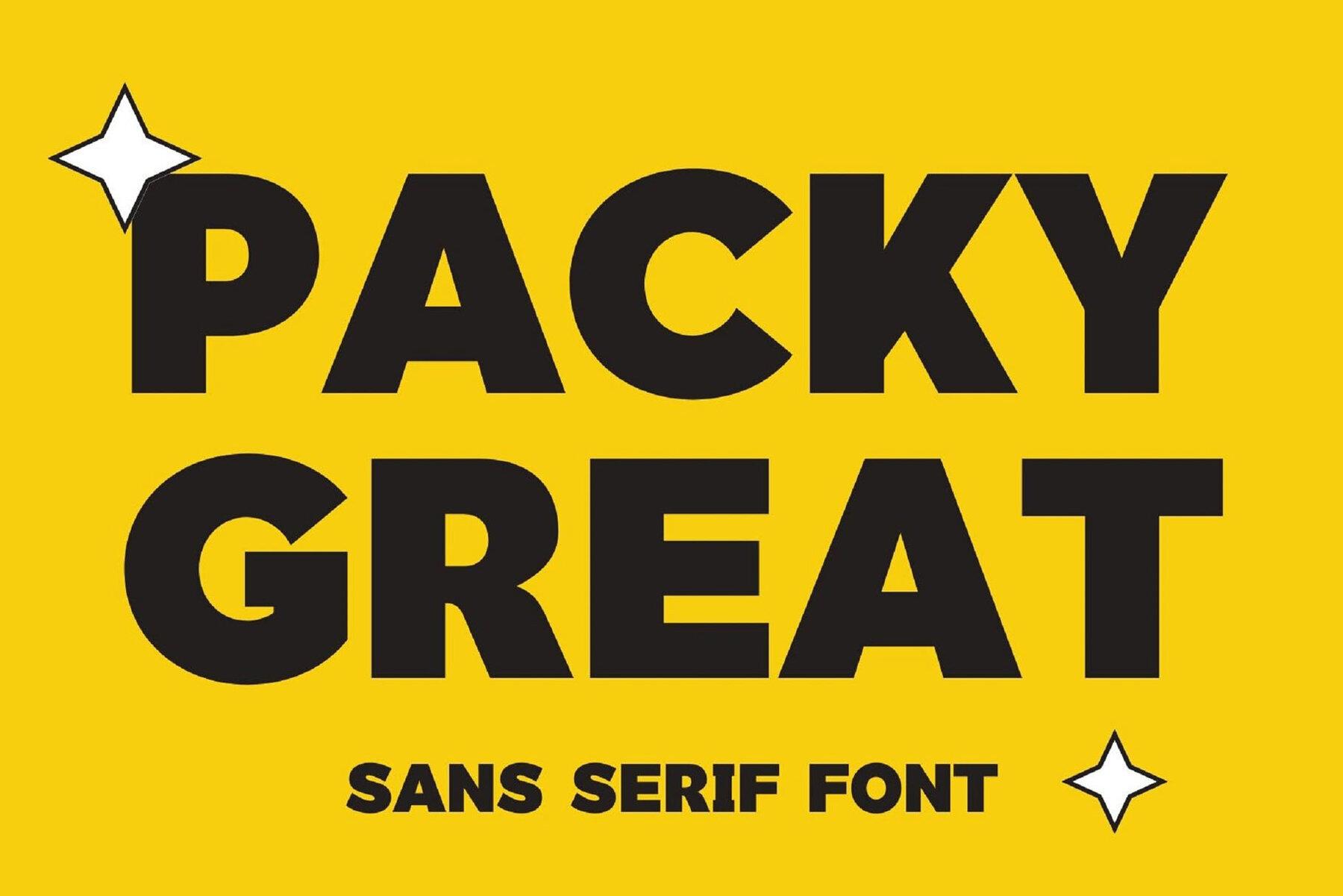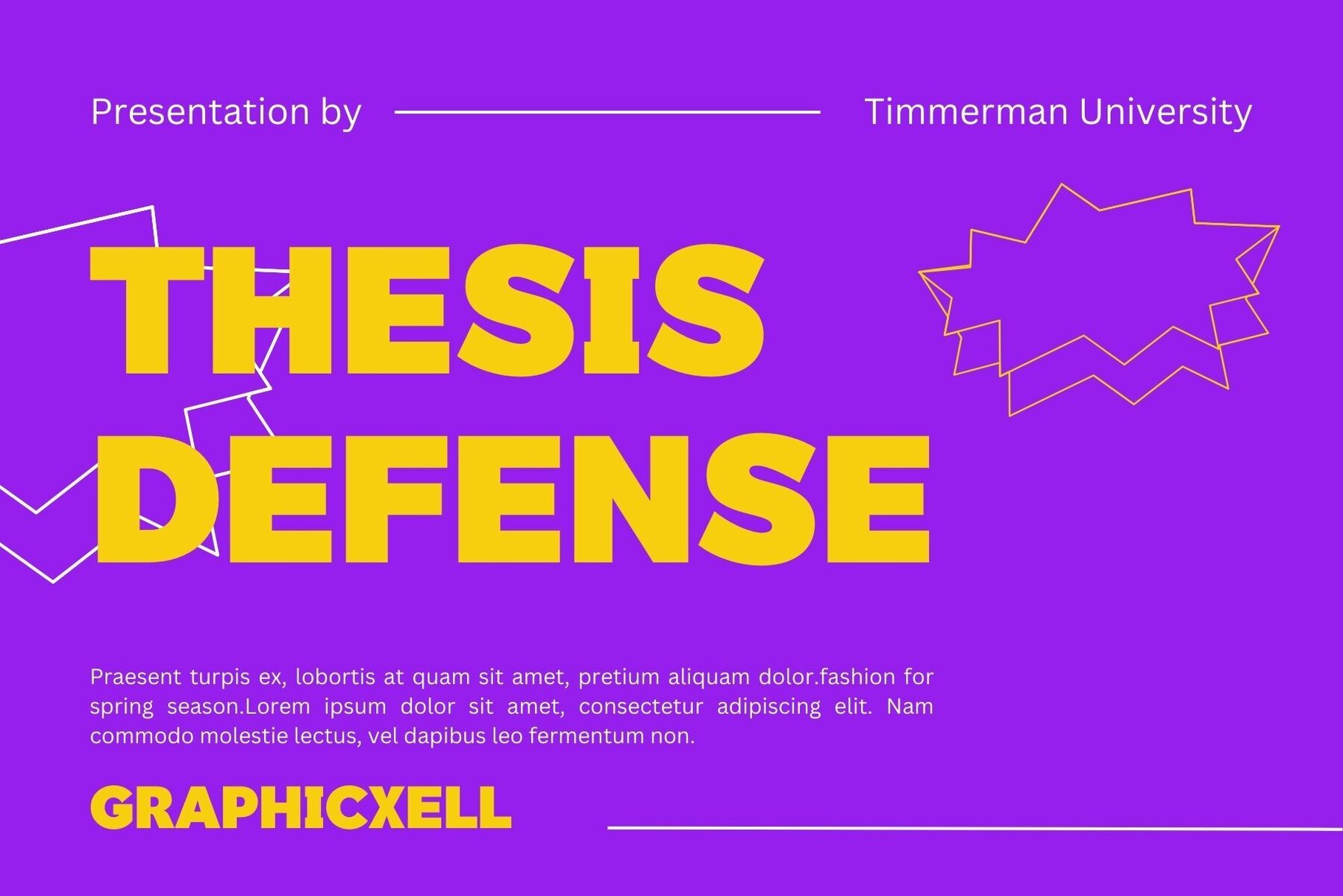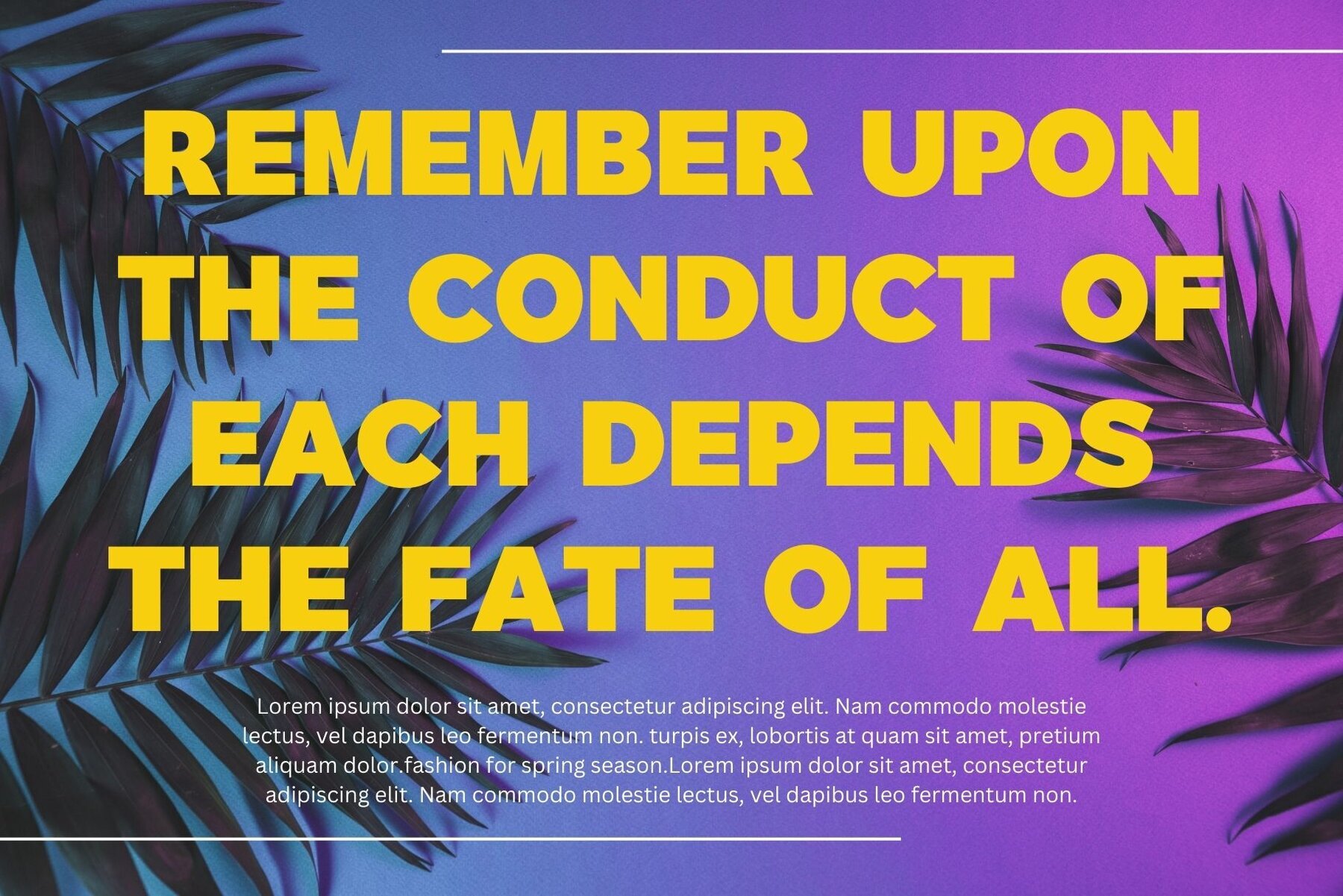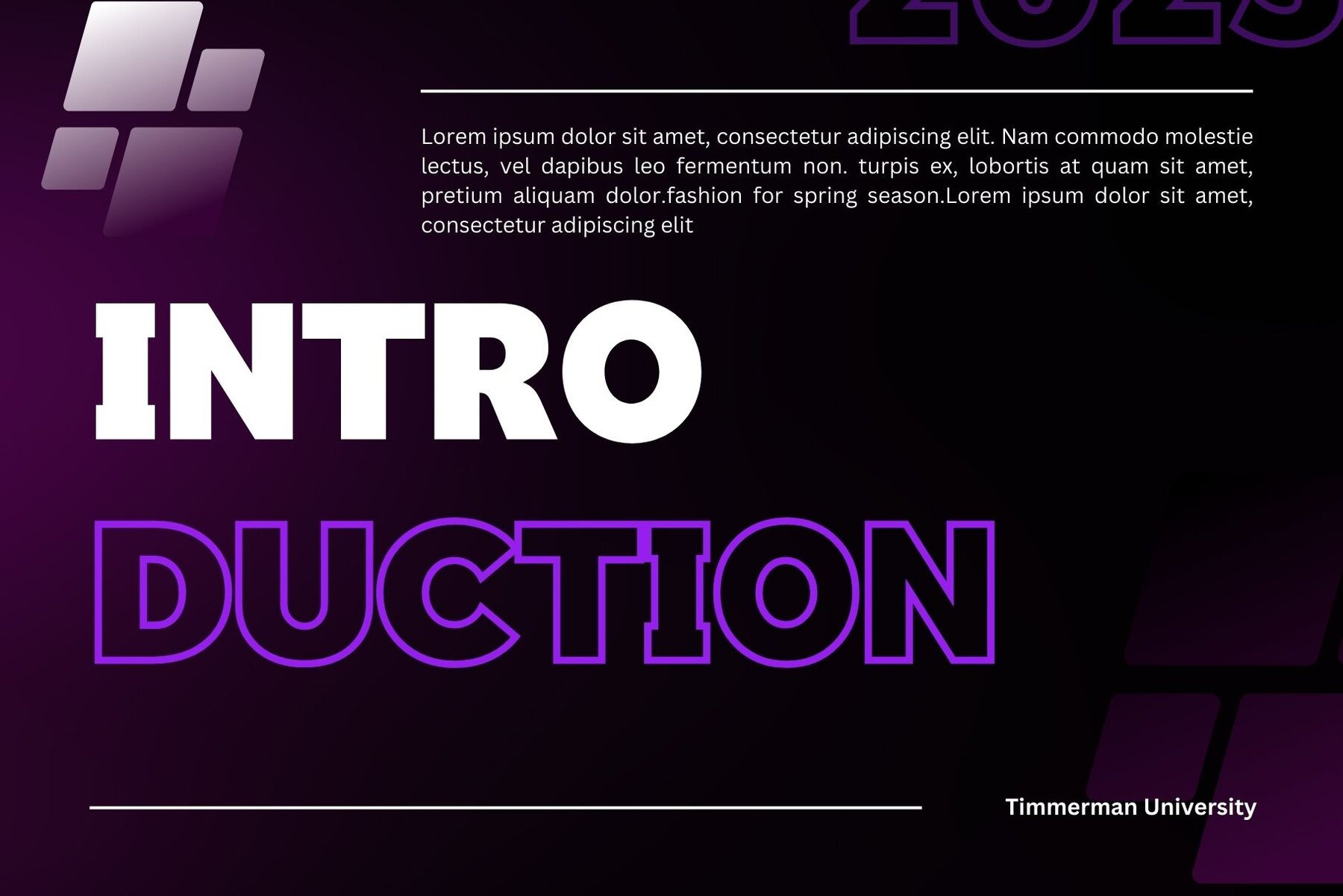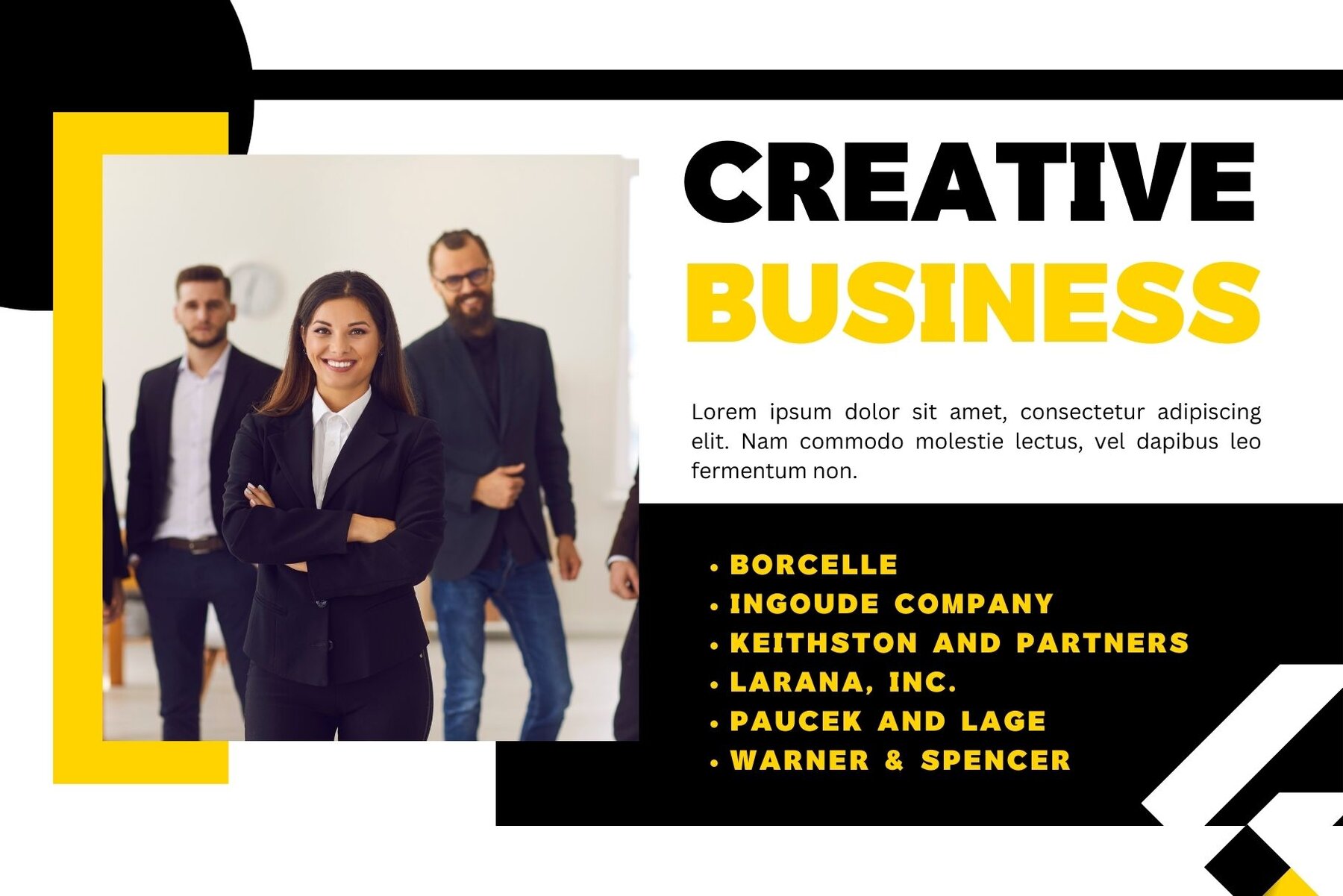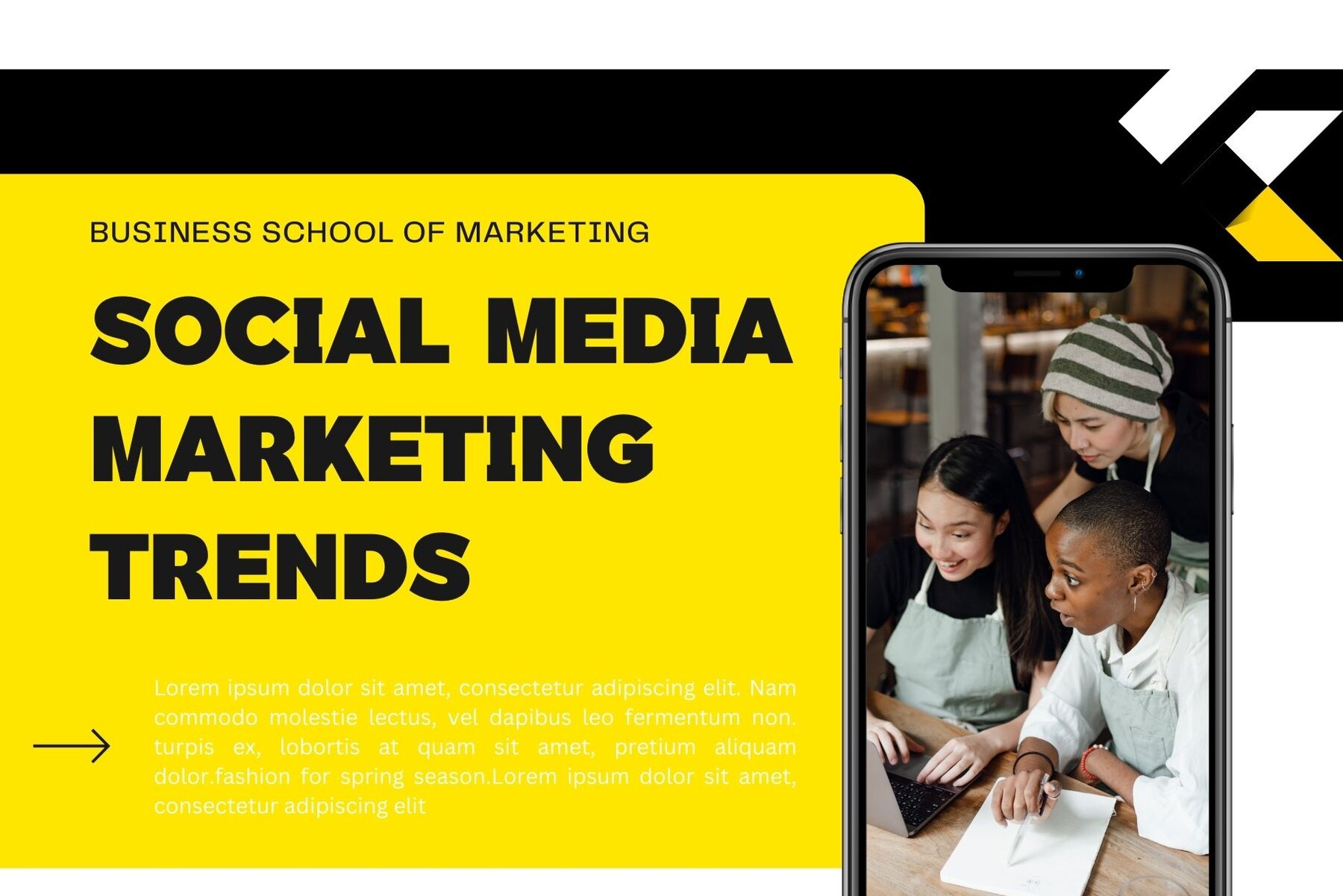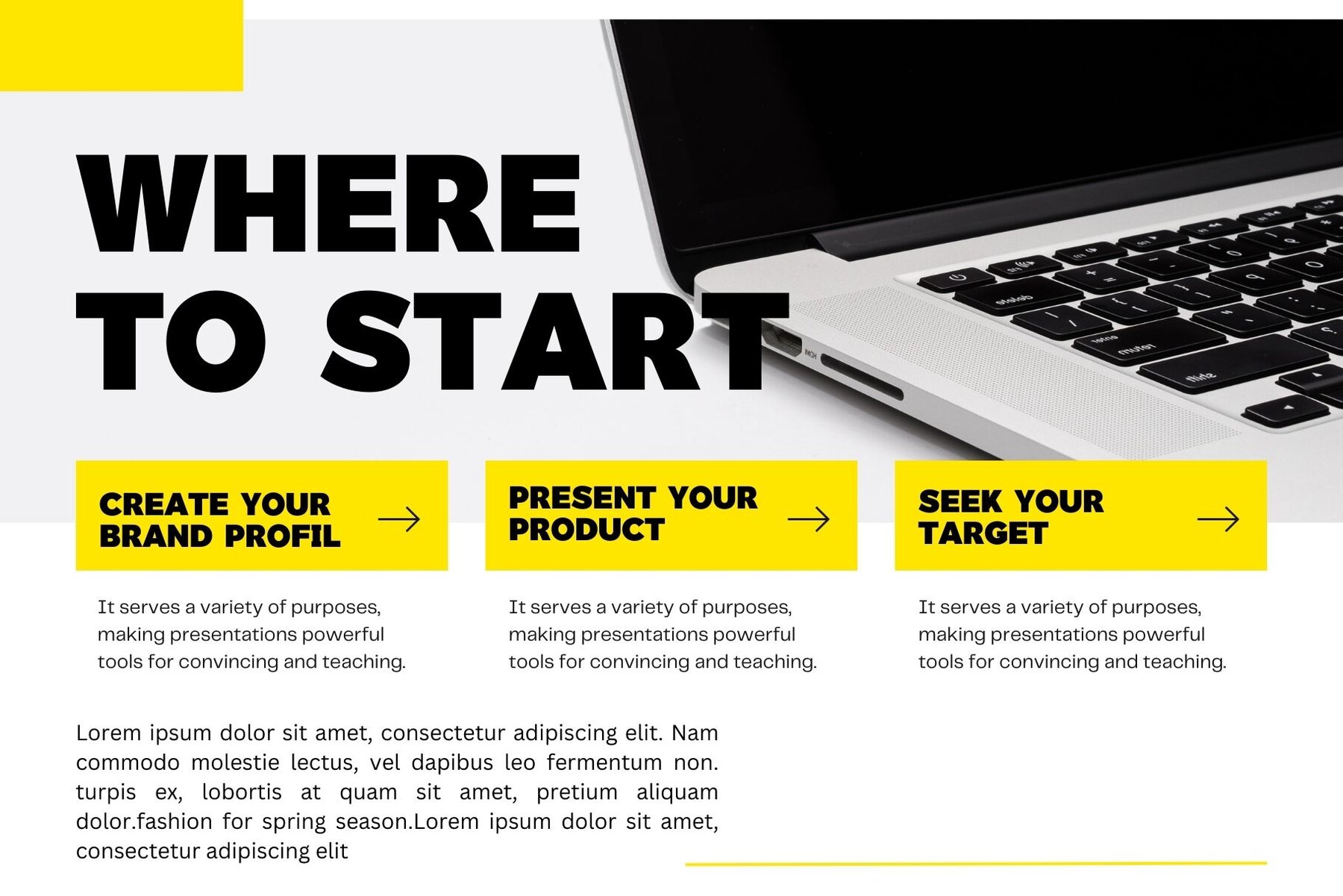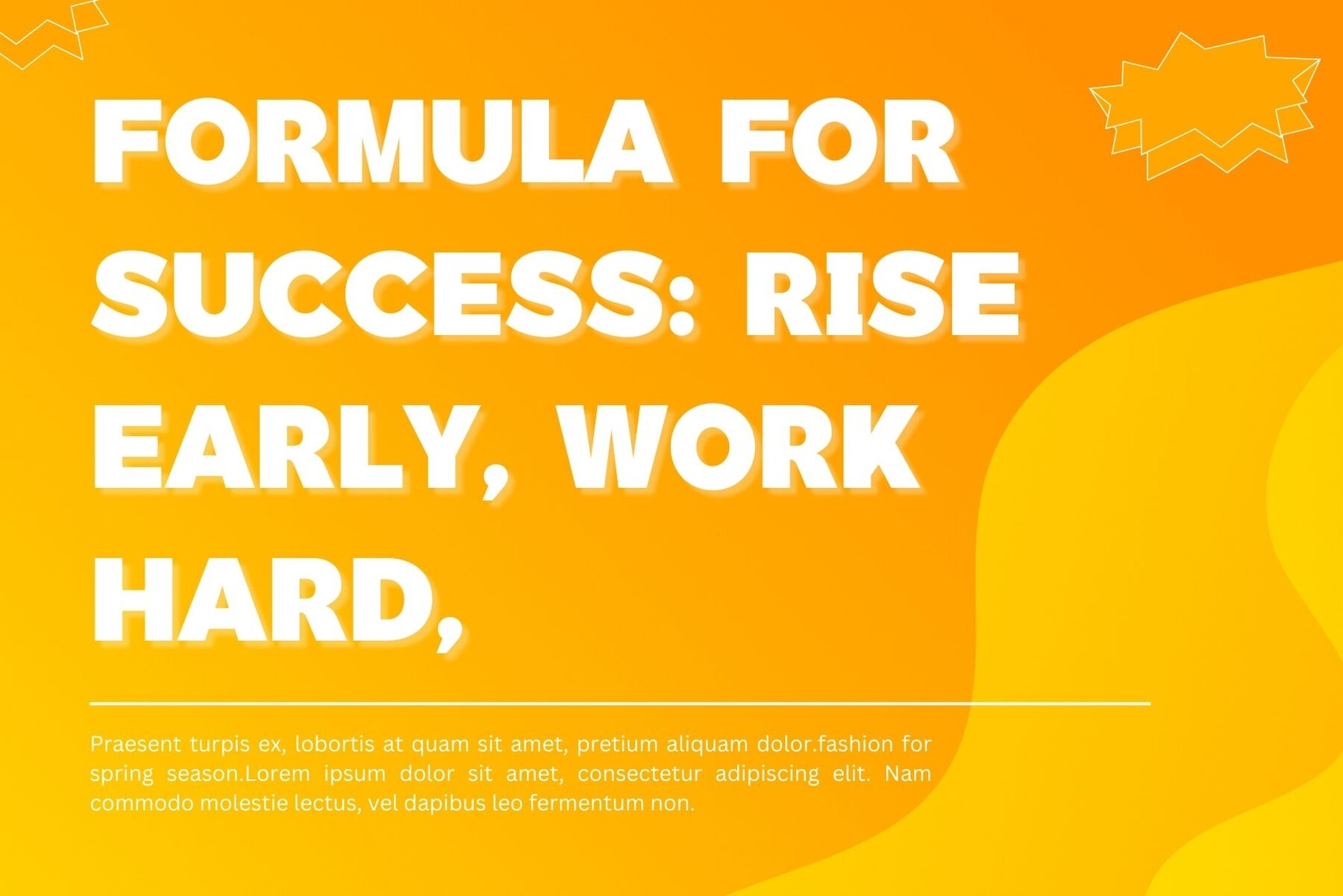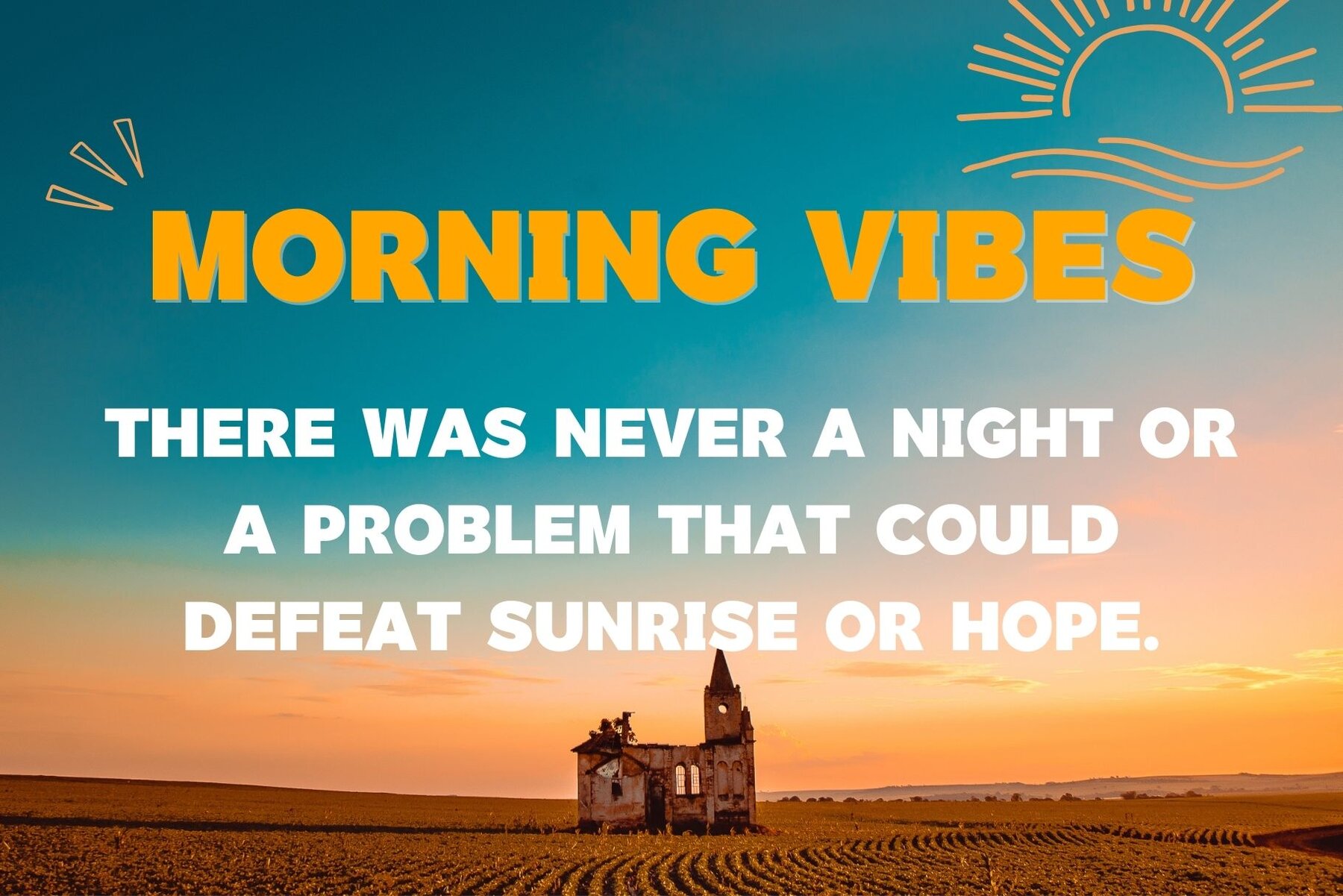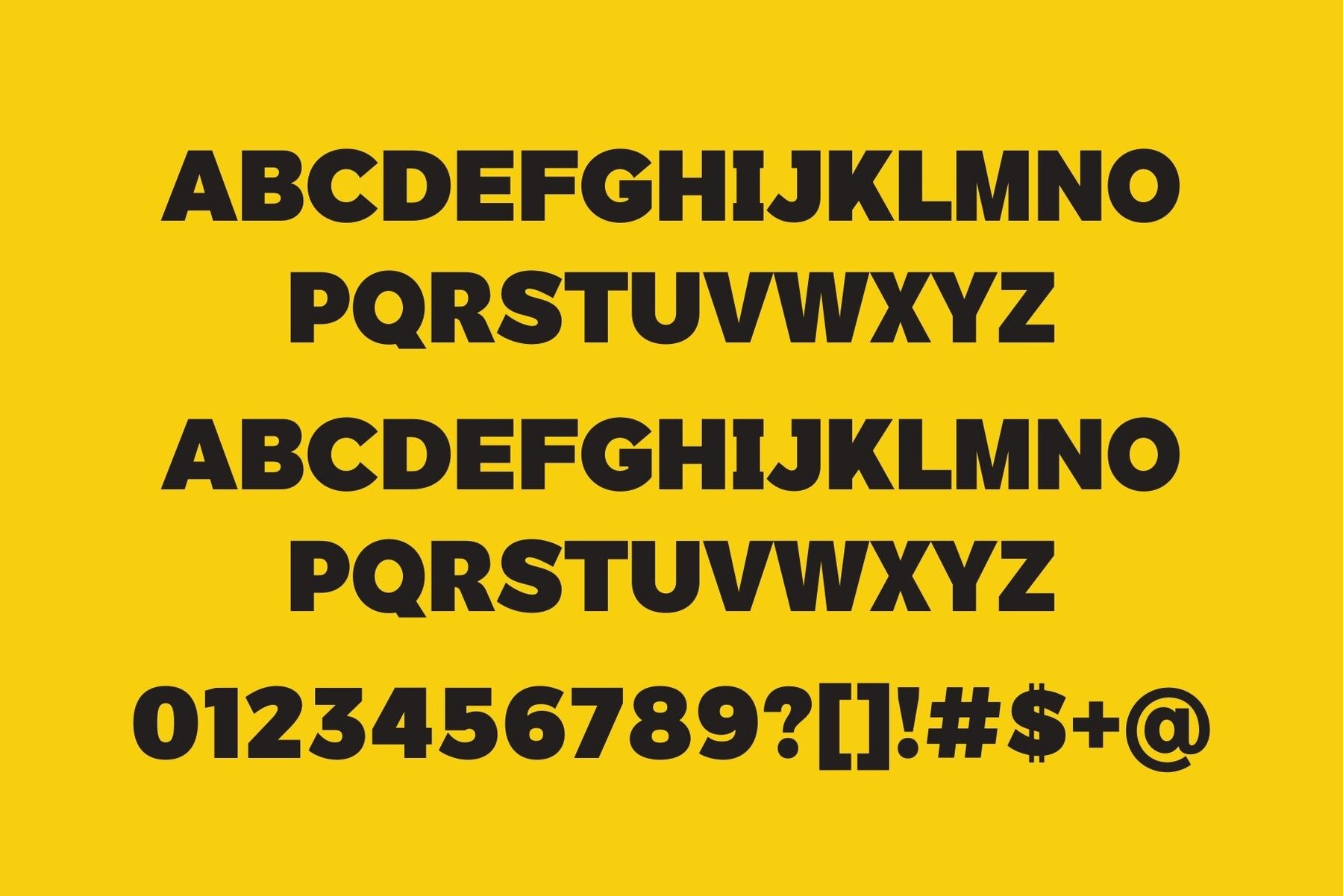
Packy Great Font
Packy Great
Packy Great by Graphicxell draws inspiration from renowned minimalist logos, making it ideal for a wide array of design applications. Whether you're crafting templates, brochures, videos, or advertisements, this font supports your creative process seamlessly. Packy Great is versatile and can enhance both digital and print media projects, ensuring your designs are both elegant and impactful.Packy Great: A Minimalist Font for Versatile Design
Perfect for Various Design Needs